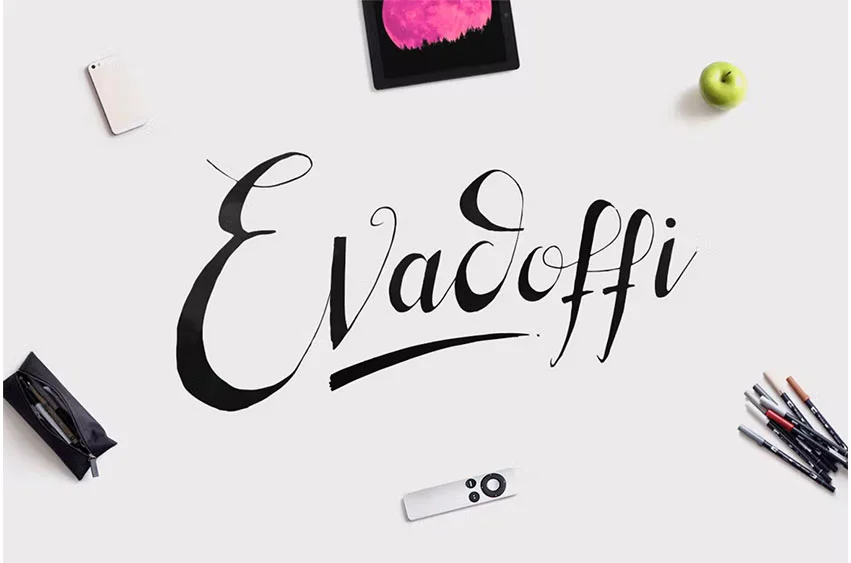
Evadoffi Typeface Font
Evadoffi Typeface Font is a handwritten font designed using a pen. Evadoffi is perfectly suited to stationery, logo, typography quotes, magazine or book cover, website header, wedding, branding, packaging design, and more.